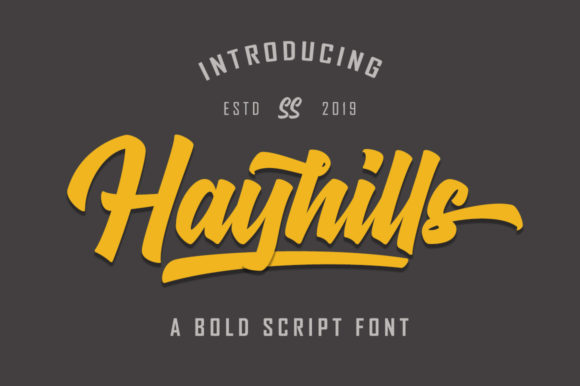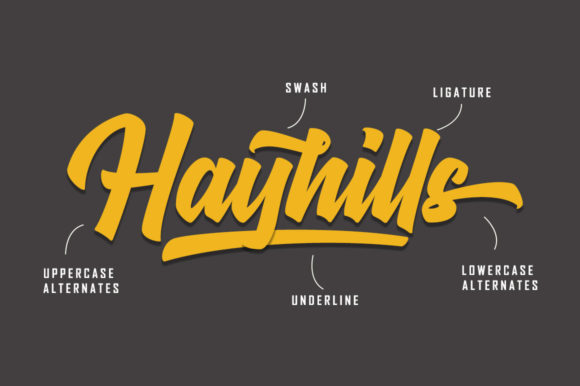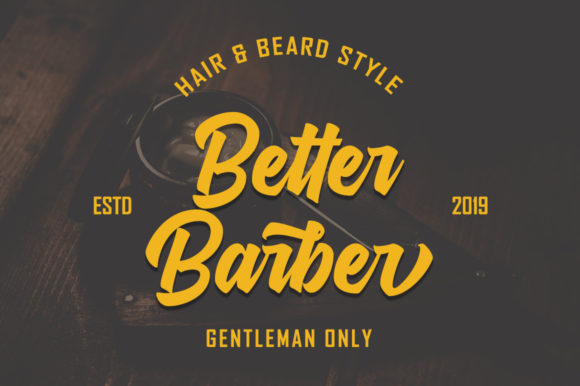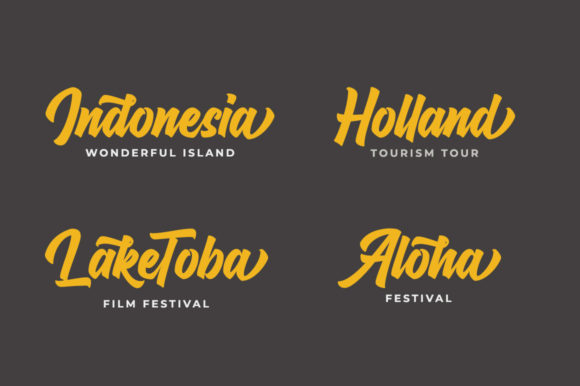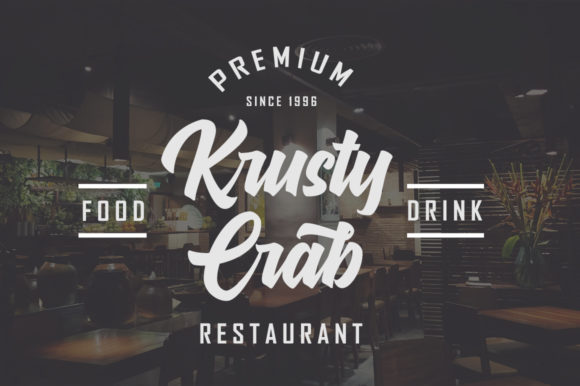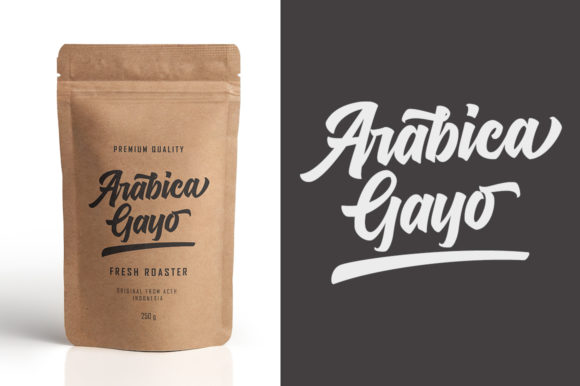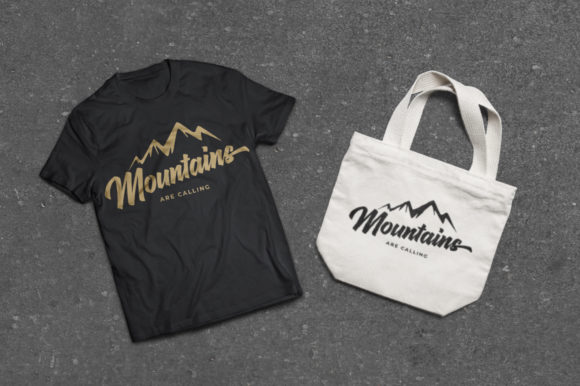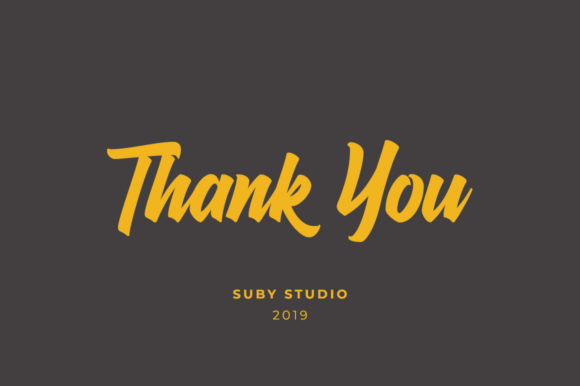
Hayhills Font
About Hayhills Font
Hayhills is a beautiful, bold and charming script that’s great for adding that vintage feel to a wide variety of designs.